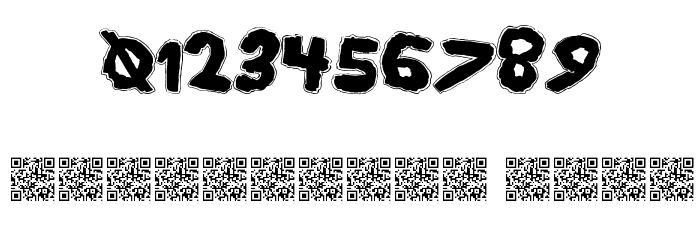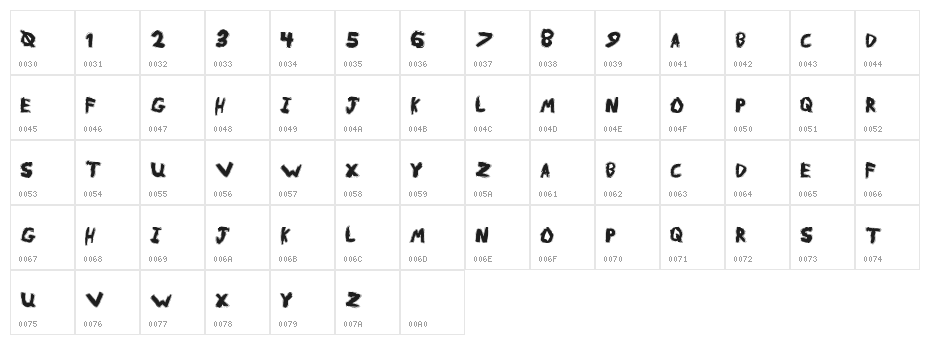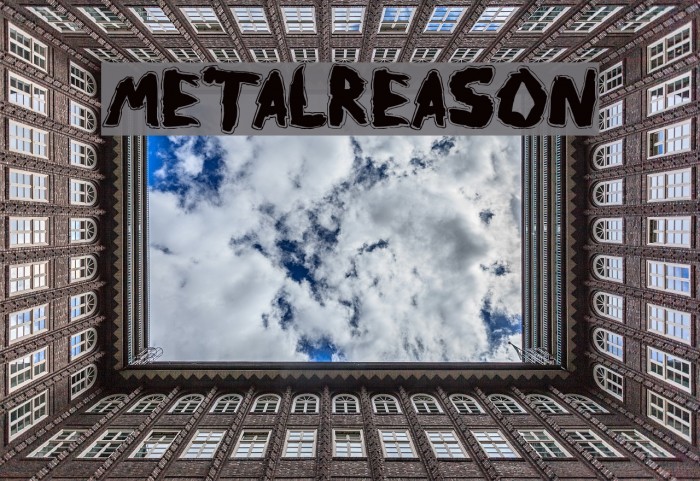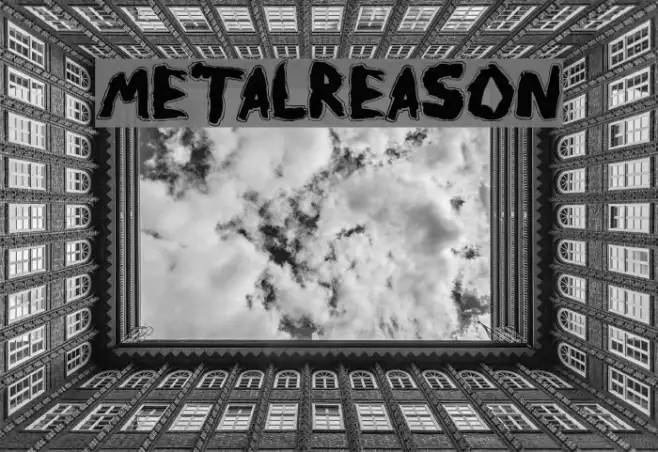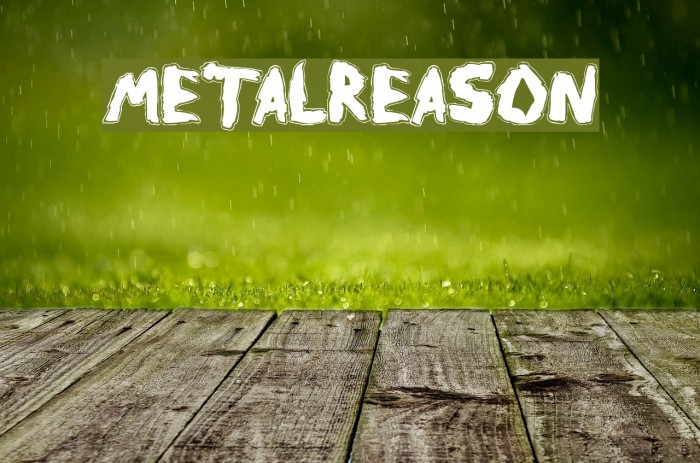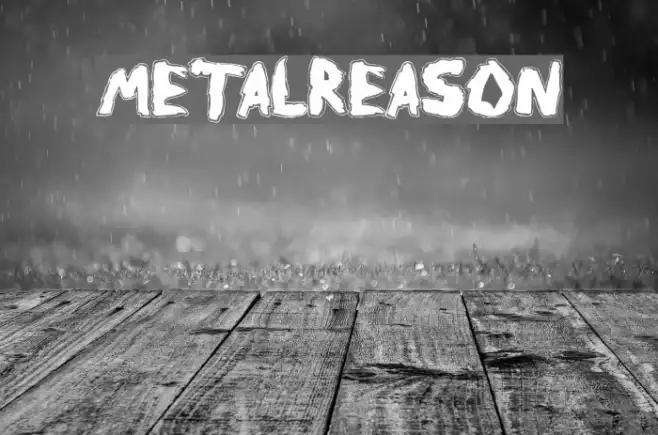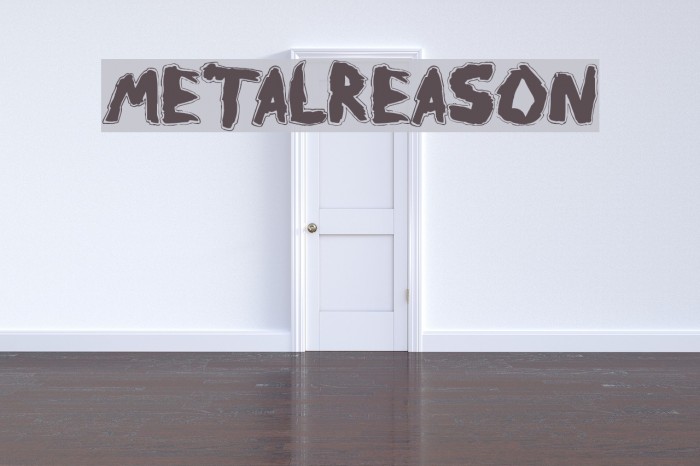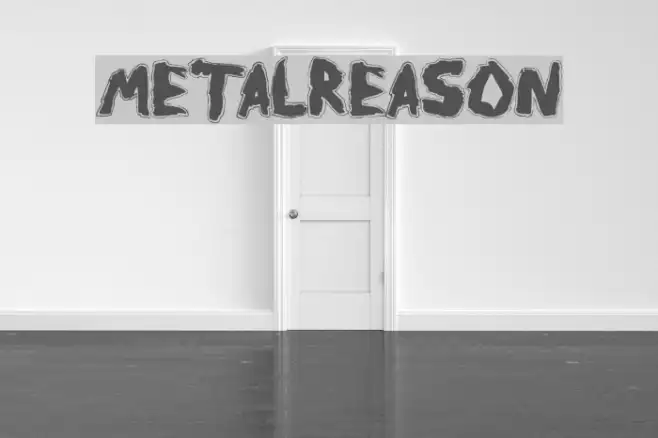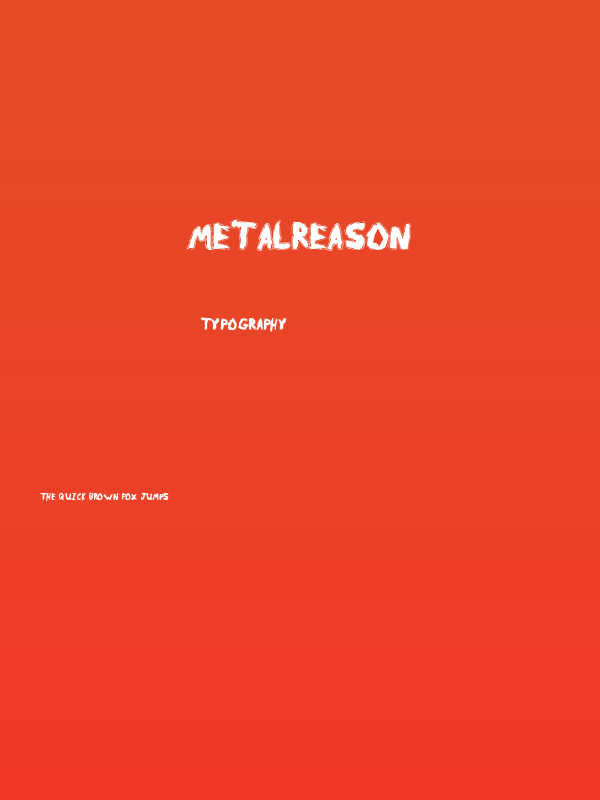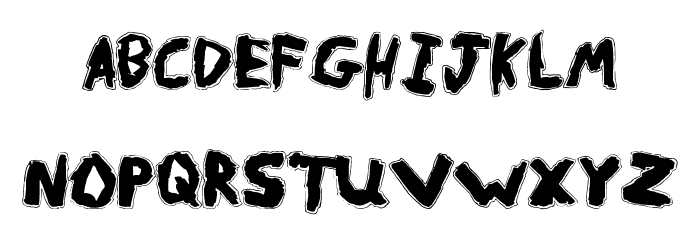
MetalReason Font
MetalReason Description
This font features a bold, rugged style with a distressed, grunge-like appearance. The characters have a rough, uneven texture that gives them a hand-drawn feel, reminiscent of graffiti or street art. The uppercase and lowercase letters maintain a consistent style, with thick strokes and irregular edges that create a dynamic and energetic look. The numbers and special characters follow the same aesthetic, ensuring a cohesive appearance across all glyphs. This font's unique design makes it stand out, offering a bold statement in any project.
METALREASON UPPERCASE
METALREASON LOWERCASE
METALREASON OTHER CHARS
| Overall Style | Grunge, Urban, Edgy |
| Proposed Projects | Ideal for music album covers, posters, streetwear branding, and edgy graphic designs. |